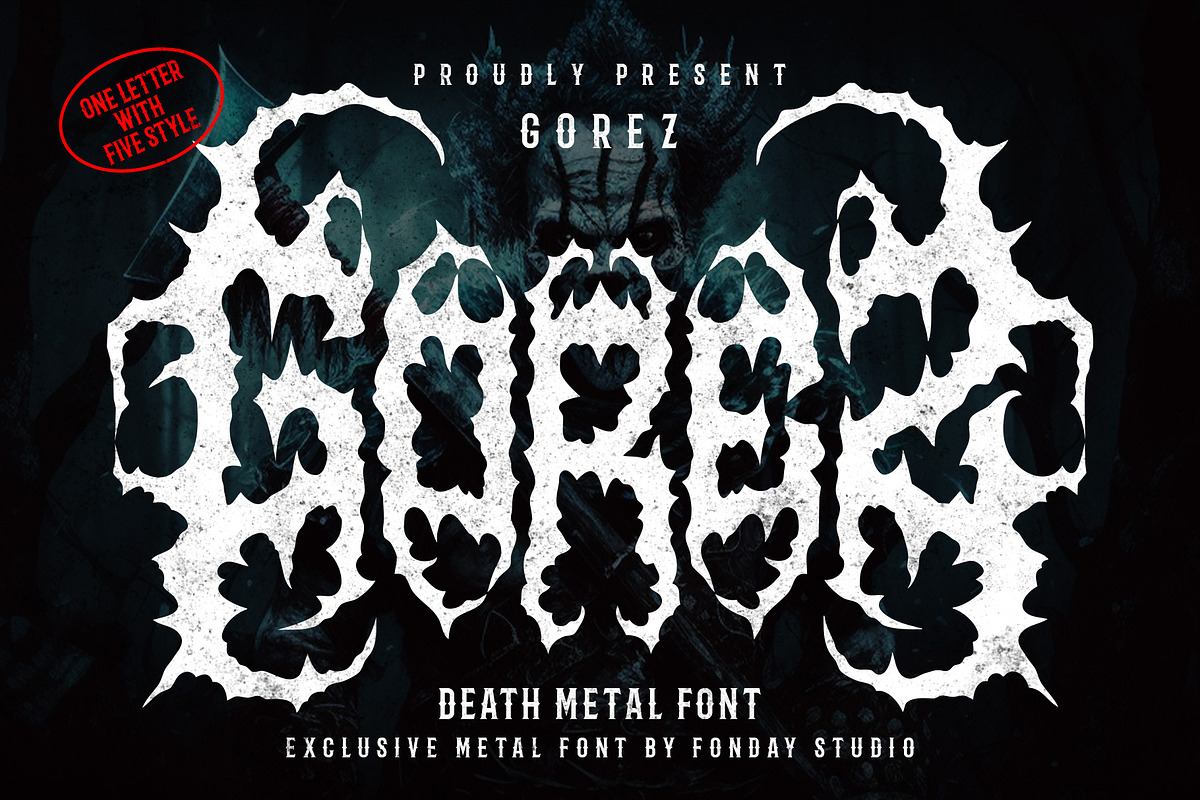
GOREZ DEATH METAL FONT Free Download is a bold and intense typeface designed to capture the raw energy and power of death metal music. With its sharp edges, distressed details, and aggressive character, this font is perfect for album covers, band logos, merchandise, and any design that needs a brutal, high-impact aesthetic.
GOREZ’s jagged and rugged style makes it an ideal choice for projects in the heavy metal, horror, and extreme genres, bringing a dark, rebellious tone to your designs.